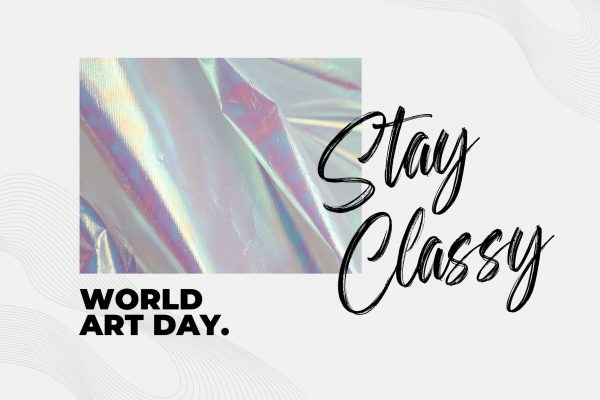
Paint Brush Script Font
It’s a bold and stylish handwritten fontface. Full set of lowercase and uppercase letters, numerals and punctuation, multilingual symbols, lowercase. This font will perfect for many different project ex: quotes, logo, blog header, poster, banding, letter, invitation, stationery, etc…